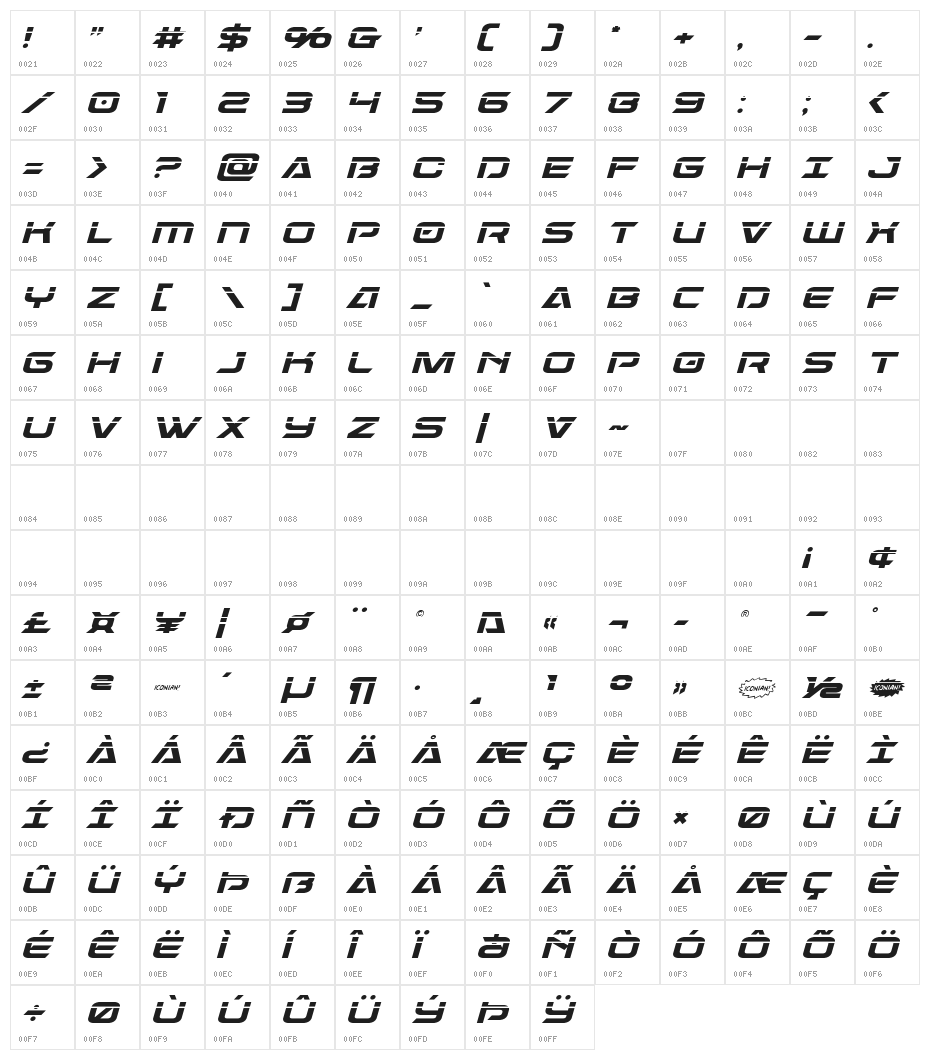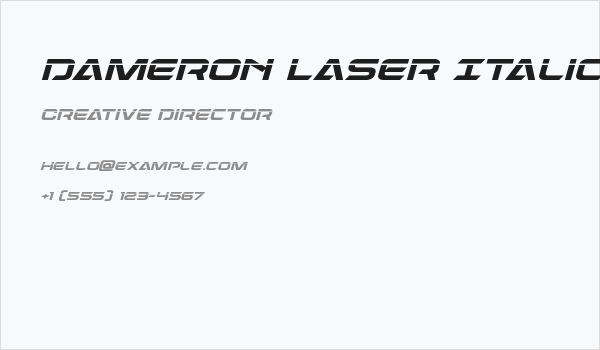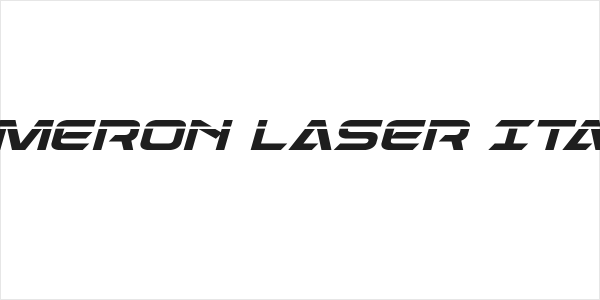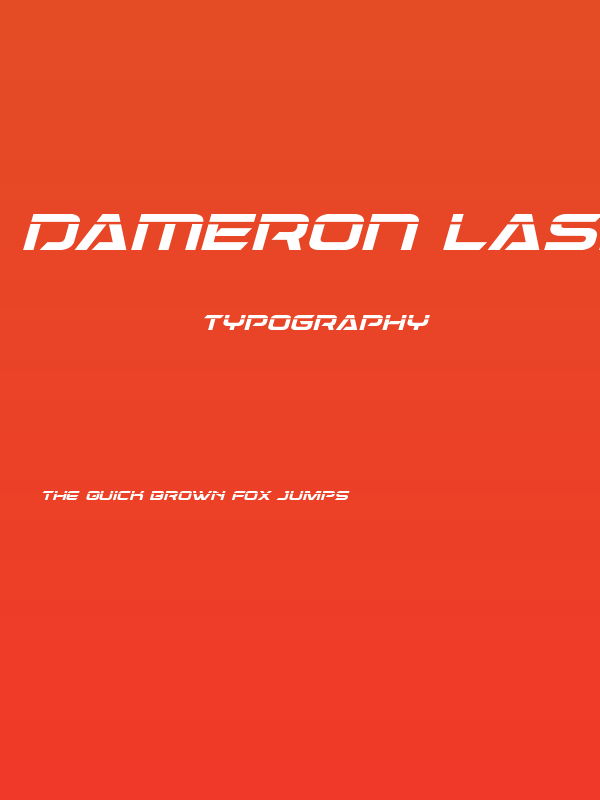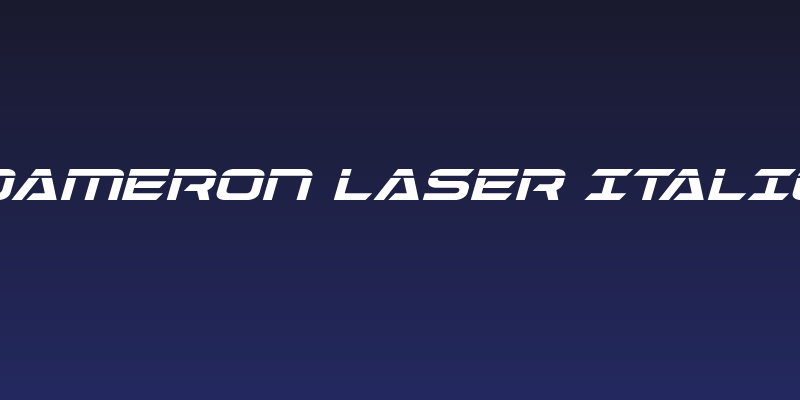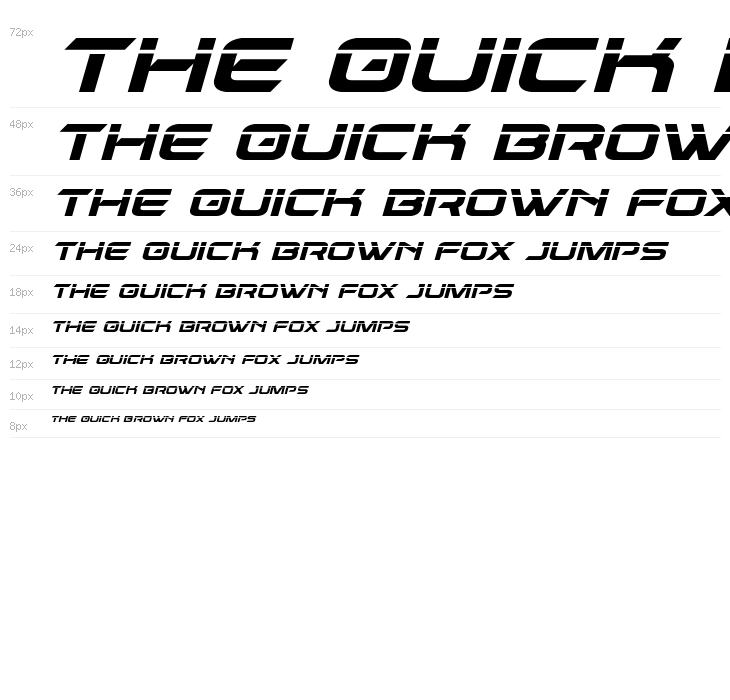
Dameron Laser Italic Font
This font features a futuristic and dynamic design, characterized by sharp angles and a slanted italic style that suggests movement and speed. The characters are bold and impactful, with a geometric structure that gives them a modern and technological feel. The uppercase and lowercase letters maintain a consistent style, with the uppercase being slightly more pronounced. The numbers and special characters follow the same design principles, ensuring uniformity across all elements. The font's unique style makes it suitable for projects that require a contemporary and edgy look.
| Proposed Projects | Ideal for technology branding, sci-fi movie posters, video game titles, and modern advertising campaigns. |